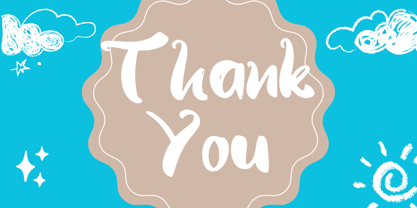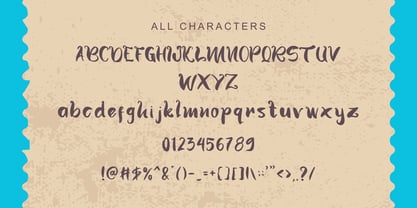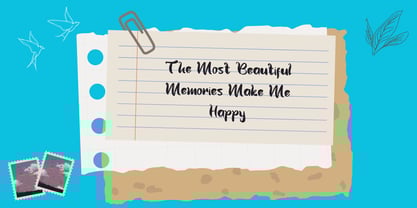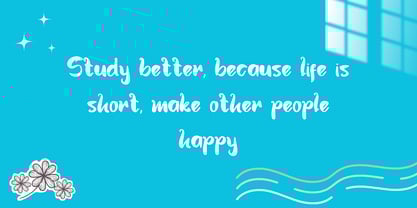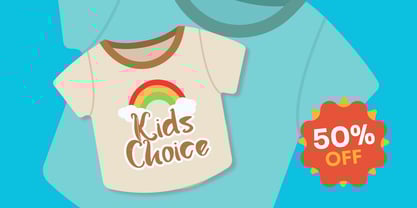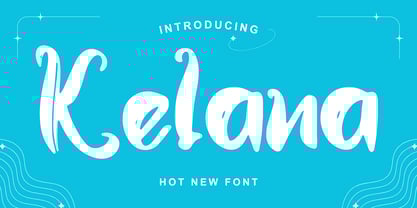
Kelana
by Andrey Font Design
The Kelana Font Family was designed by Stephanus Prabowo and published by Andrey Font Design. Kelana contains 2 styles and family package options. More about this family
Introducing an exceptional handwritten font bringing artistic elegance to your design palette. Each stroke of this handmade font infuses your design with a stunning natural aesthetic, showcasing attention to every subtle detail. Ideal for a vast range of design projects, from invitations to book covers to crafts, its versatility is a definite standout.
Designers: Stephanus Prabowo
Foundry: Andrey Font Design